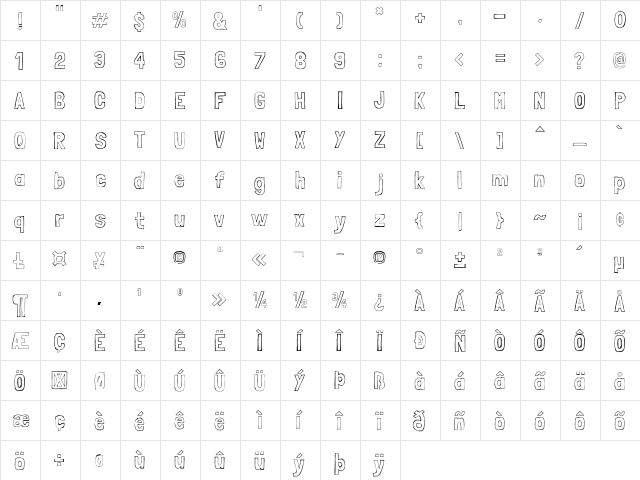
Londrina Sketche Regular
| Designer | Marcelo Magalhaes |
Design Context for Londrina Sketche Typeface
Londrina Sketche is a composed and adaptable typeface that performs quietly and consistently across a wide range of design contexts.